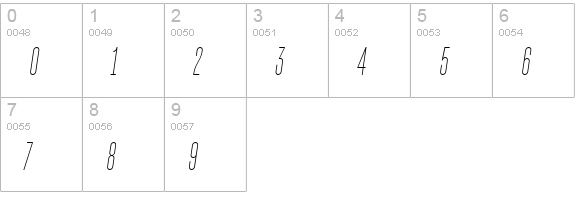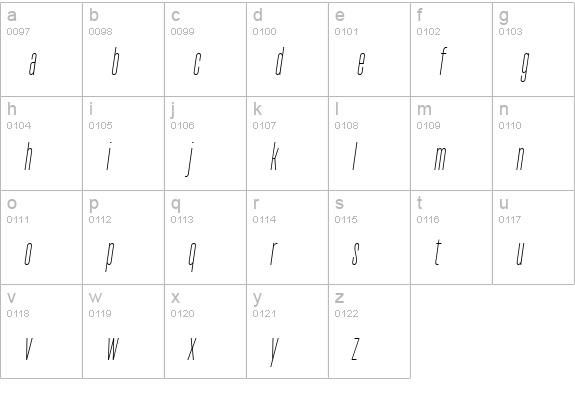
TT Bluescreens Light Italic Font Details
TT Bluescreens Light Italic is a refined, elegant, italic variant in the TT typeface family \xE2\x80\x94 well suited to elegant body text, refined sub-headings, and luxury branding.
TT Bluescreens Light Italic font is a sleek and modern typeface designed for those looking to add a touch of sophistication to their projects. With its stylish italic design, this font exudes elegance and professionalism. Perfect for use in branding, advertising, and editorial design, TT Bluescreens Light Italic is versatile and eye-catching. What sets this font apart is not only its aesthetic appeal but also its accessibility. Yes, you heard it right - TT Bluescreens Light Italic is available for free download at FontsMarket.com. This means you can elevate your designs without breaking the bank. Don't miss out on this opportunity to enhance your creative projects with a high-quality font that won't cost you a penny. Download TT Bluescreens Light Italic today and see the difference it can make in your designs.